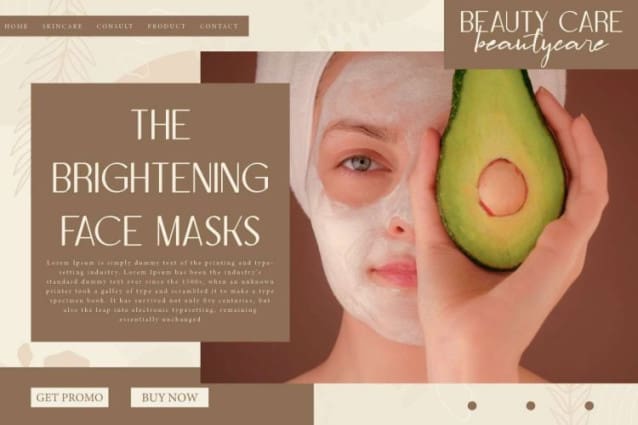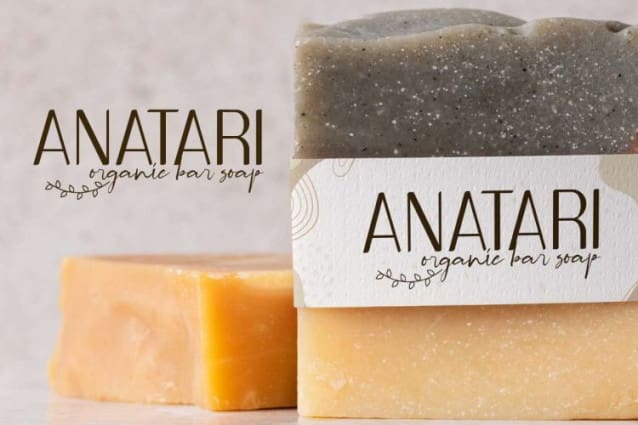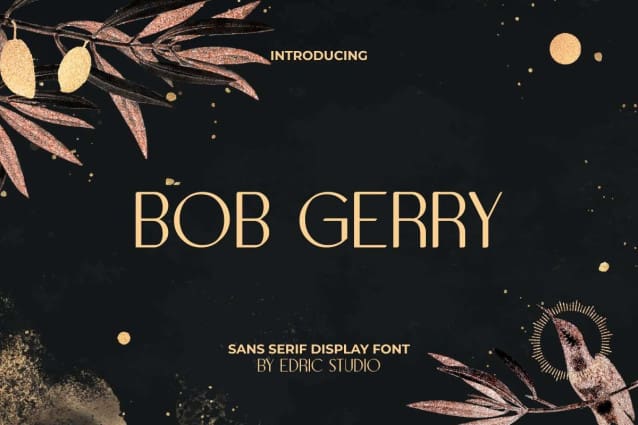
Bob Gerry Font
Bob Gerry Font is an elegant sans serif display font with a modern feel. This font has a clean appearance, so it can make any of your designs classy and become the choice of many people. It will be suitable for any business, such as accessories, beauty product, cafe, fashion, entertainment, event organizer, photography, printing, publishing, restaurant, spa, writer, and many more!
Bob Gerry Font comes with full set of ALL CAPS for Uppercase and Lowercase Basic Characters, Number, a large range of Punctuation, and Symbol. It has sophisticated characters set, perfectly managed with well spaced and kerning. Bob Gerry Font will be able to complement for any design (with extended license) including: brand image, cover, custom design, label, merchandise, packaging design, poster, quote, screen print, signage, stationery, sticker, title, website page, etc.